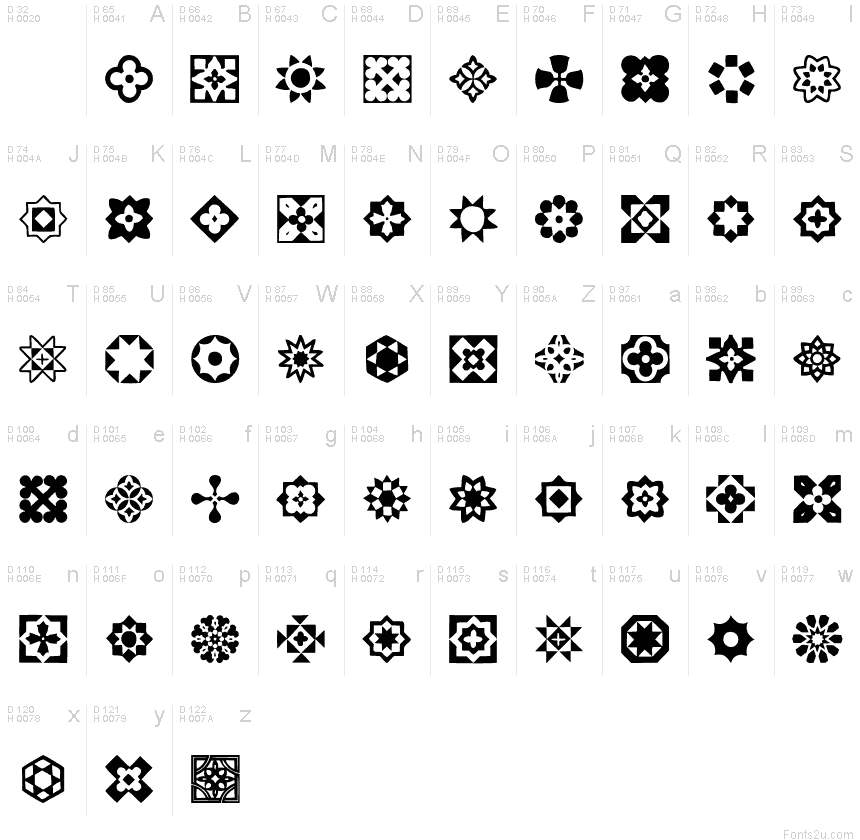
Italian Mosaic Ornaments
Italian Mosaic Ornaments font by Dixie's Delights is a free decorative dingbat typeface inspired by bold ceramic tiles and inky, hand-cut motifs. Each glyph feels like a tiny black-and-white tile: starbursts, floral clovers, and shield-like frames that lock together into rhythmic borders or repeating patterns, crisp yet slightly organic at the edges.
Using Italian Mosaic Ornaments, you can quickly build ornate frames for invitations, menu headers, packaging labels, scrapbook pages, social posts, or logo badges without drawing a thing. The strong silhouettes hold up at small sizes for borders and become striking icons when enlarged. For a balanced layout, pair this free font’s solid ornaments with a clean sans serif for text and keep plenty of white space around the patterns to let them breathe.